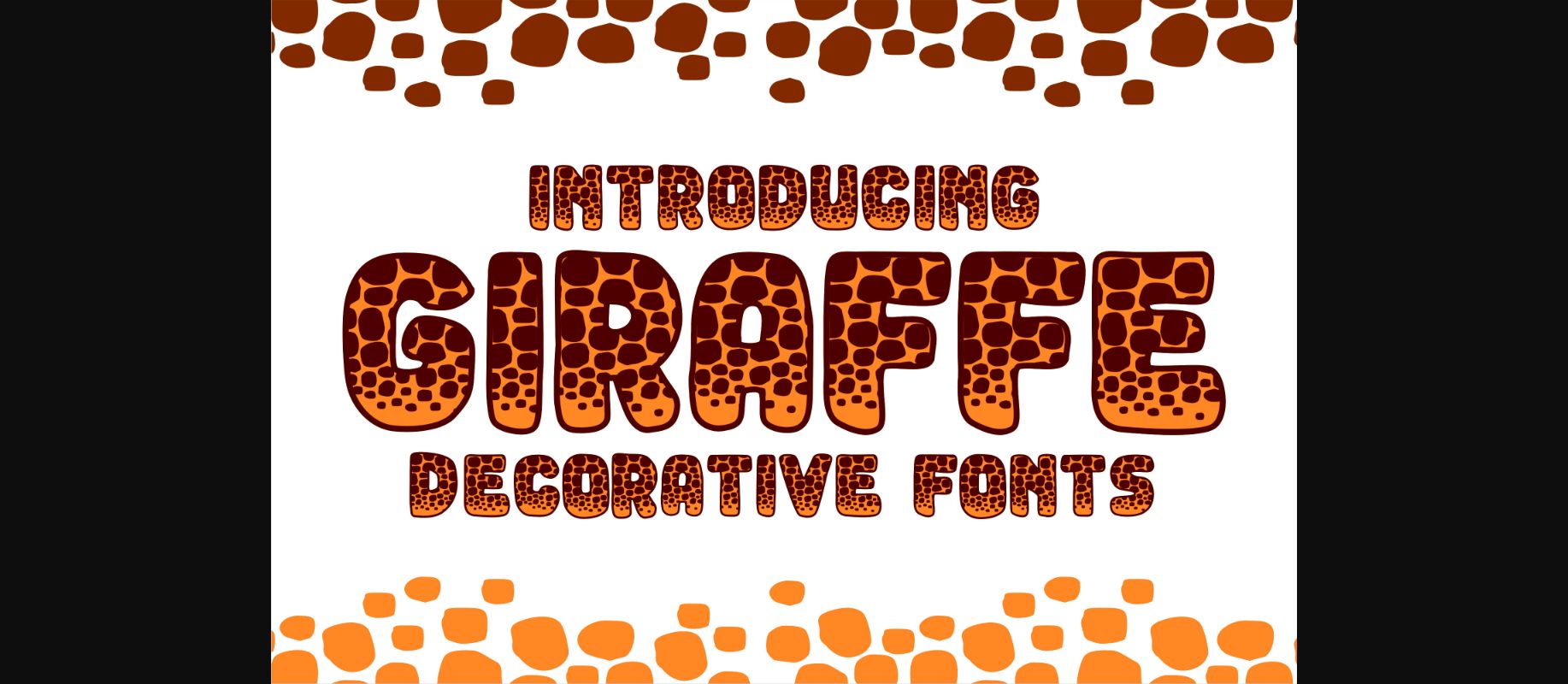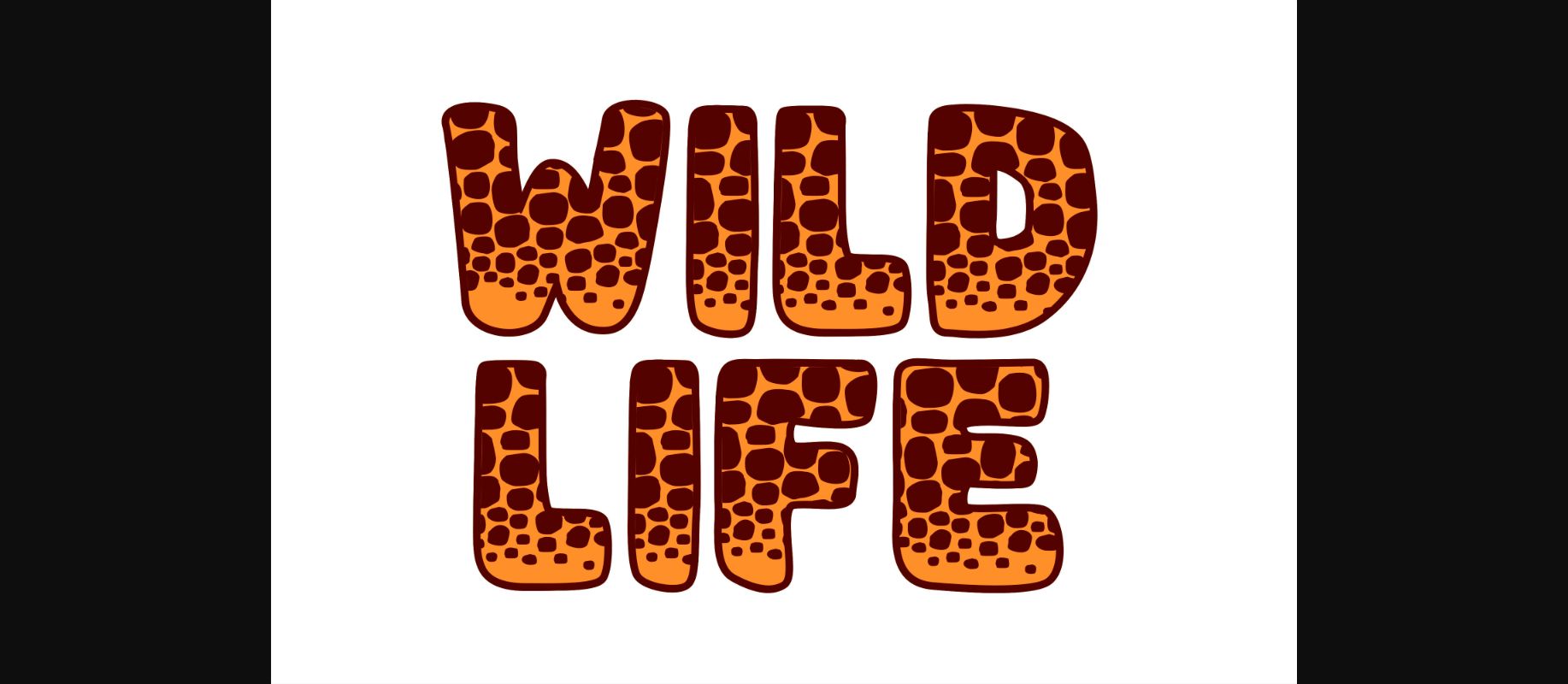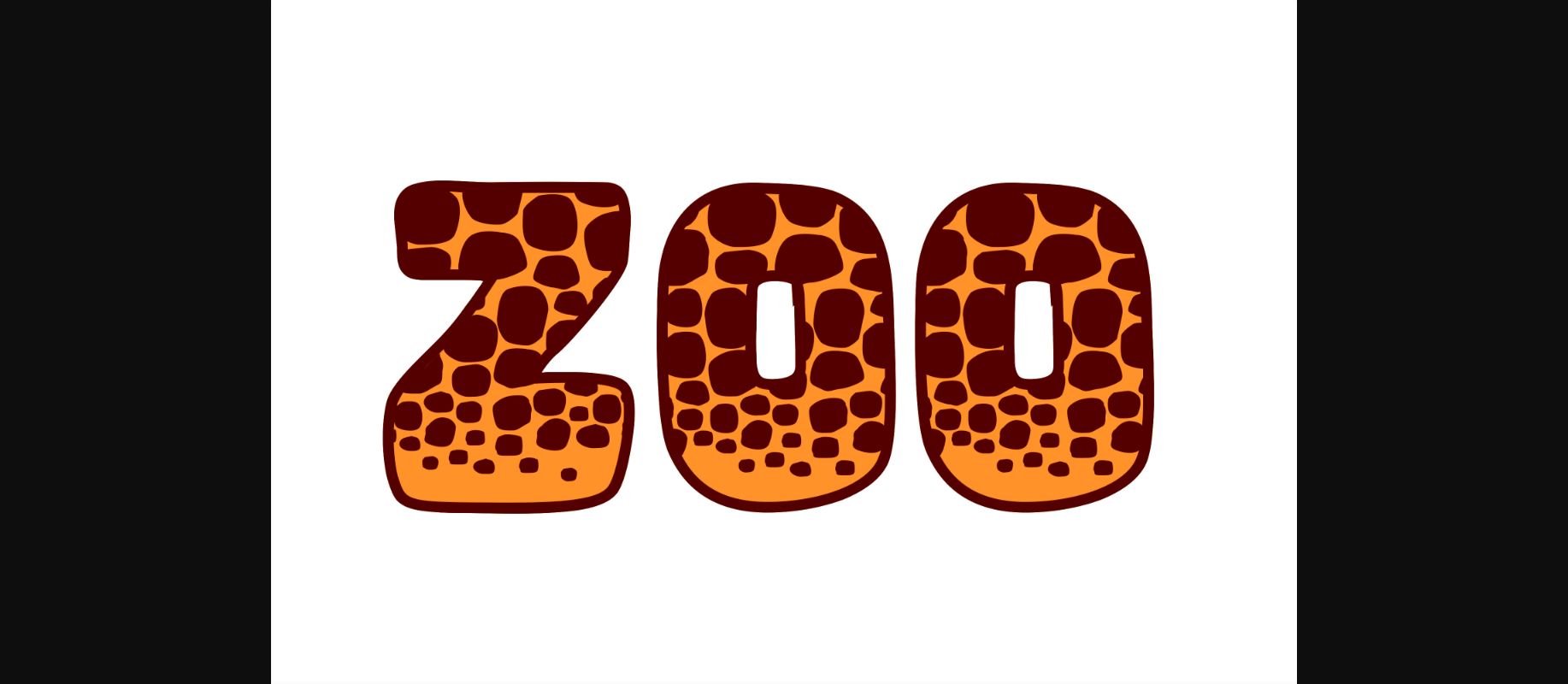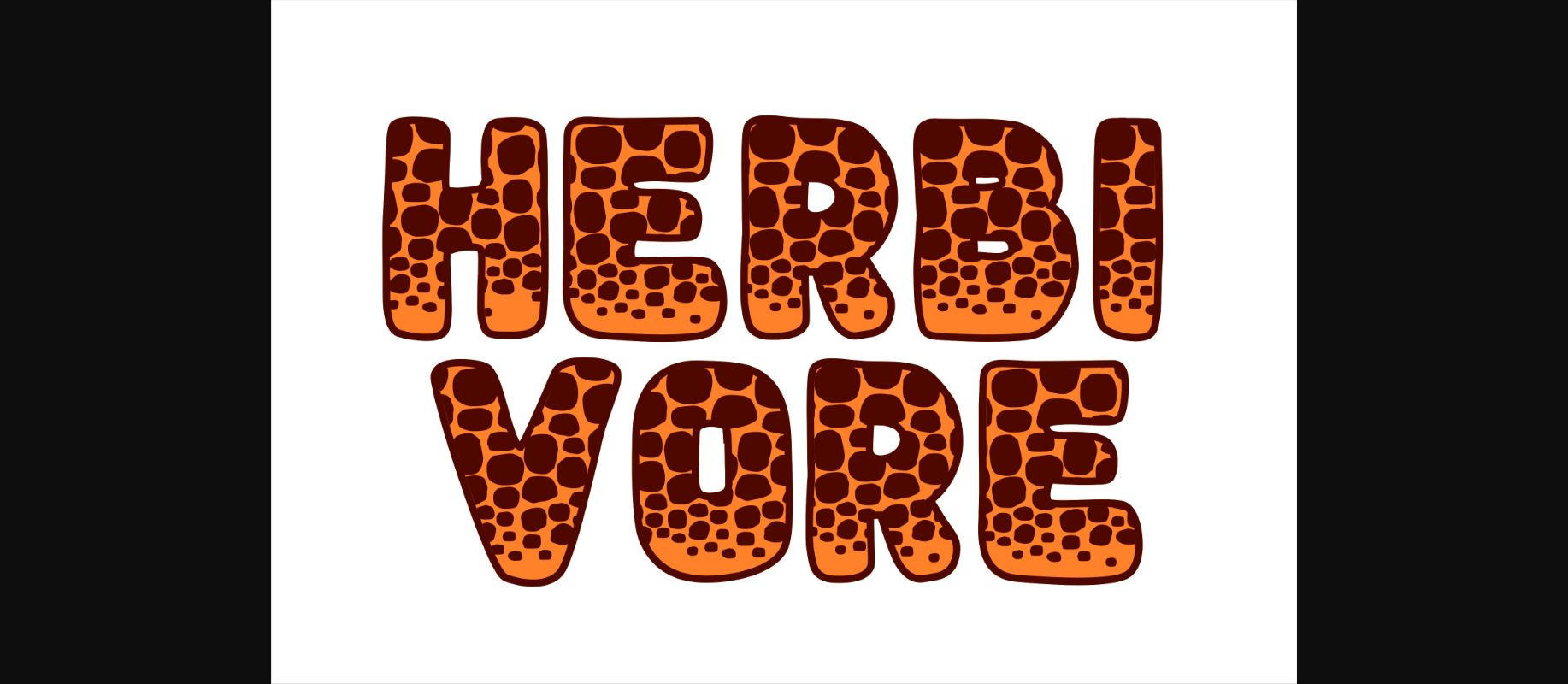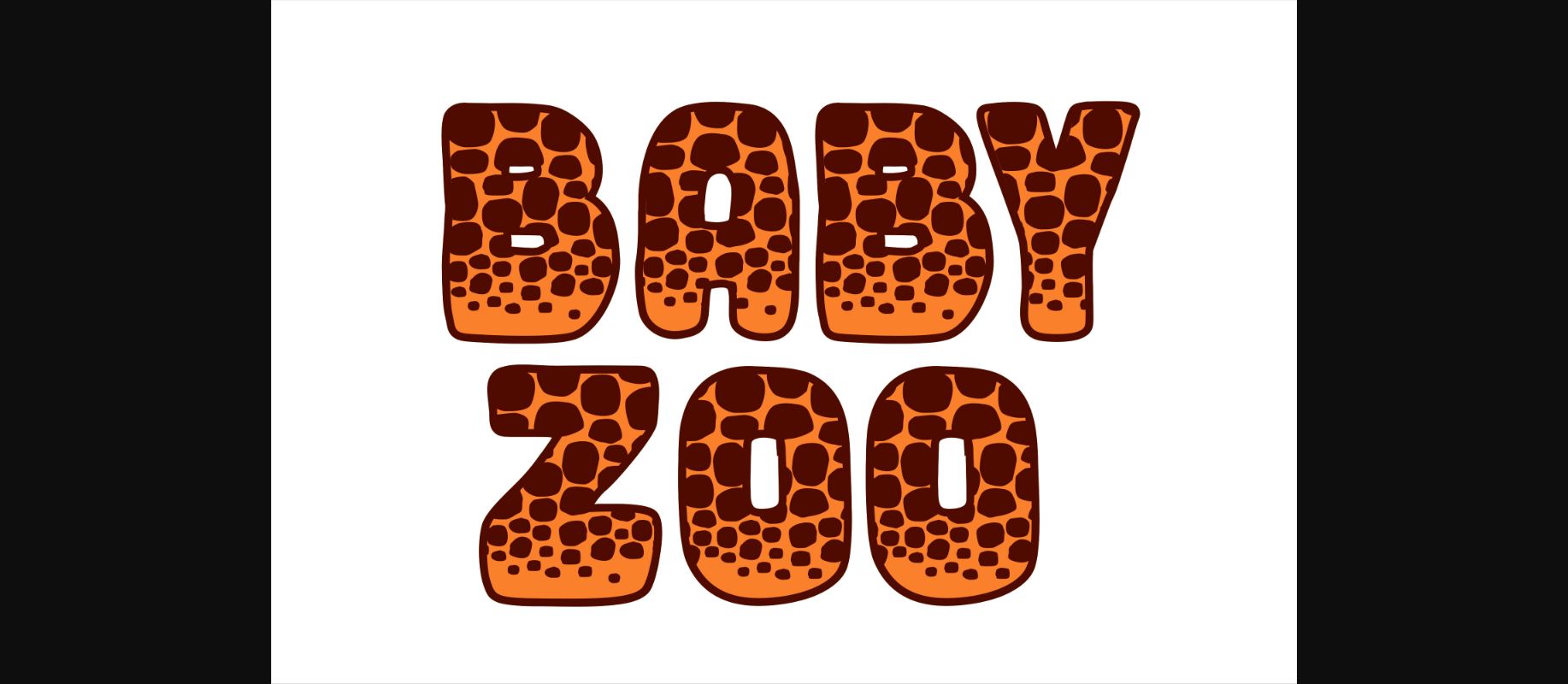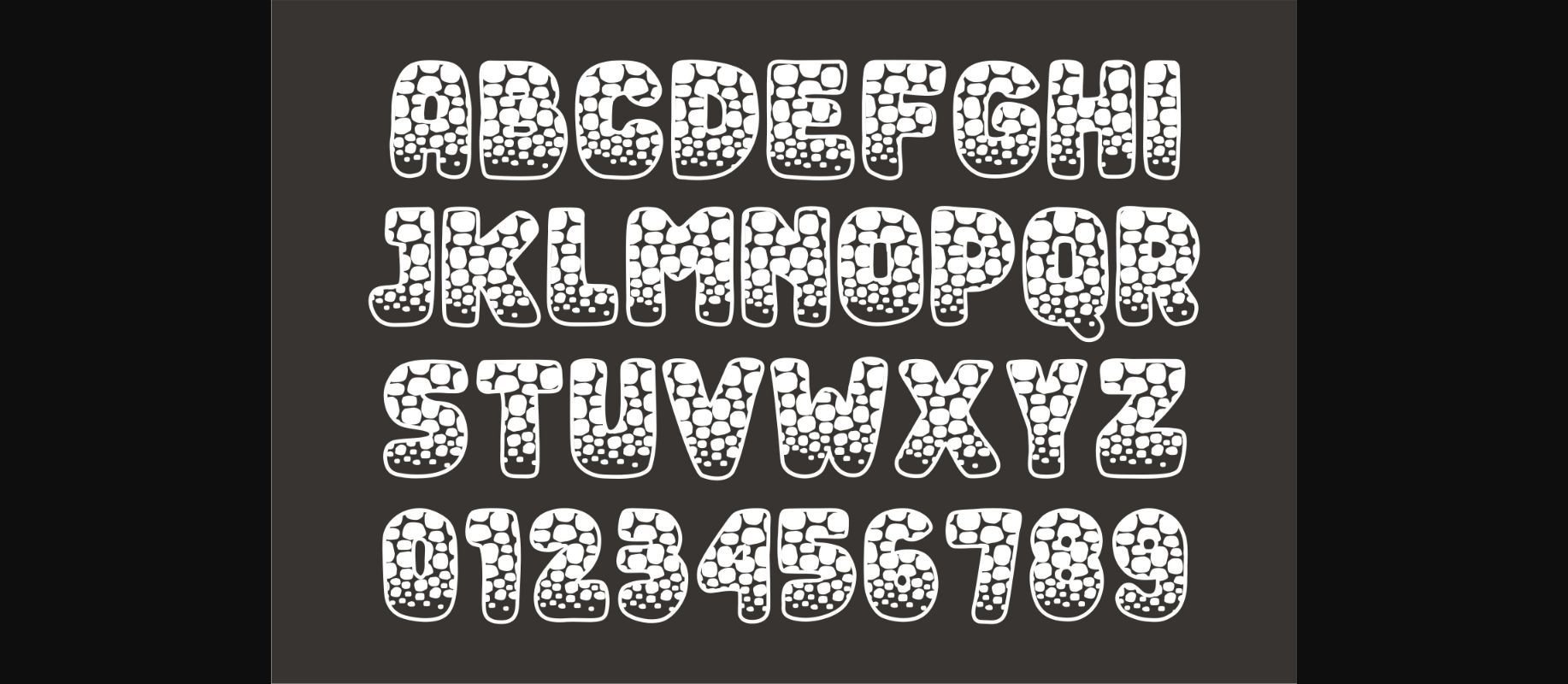
Giraffe Font
About Giraffe Font
Giraffe is a decorative font with a giraffe skin texture. This font is perfect for nature-themed designs and for children’s projects. No matter the topic, this font will be an incredible asset to your fonts’ library, as it has the potential to elevate any creation.